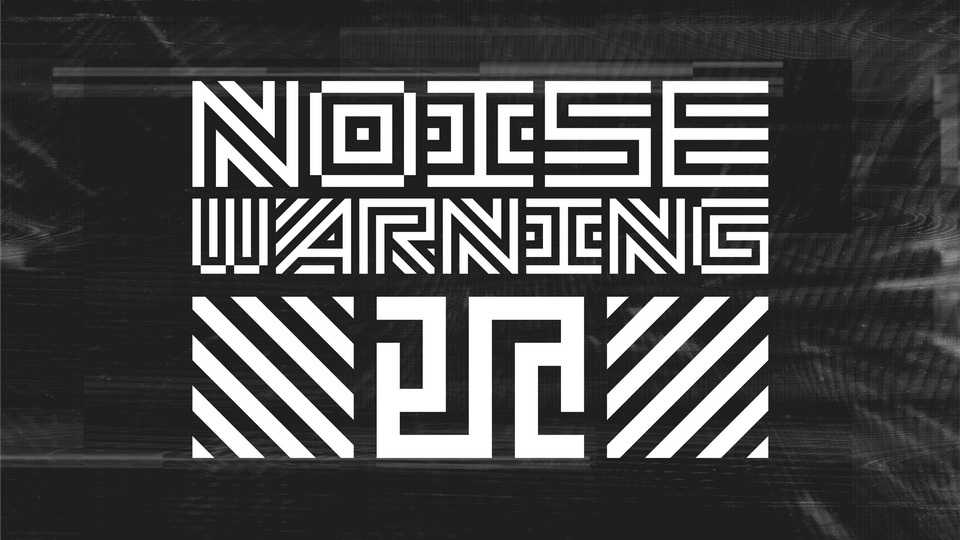
Download Nosie Warning-ϗ font, a unique modular display typeface with a futuristic look. Nosie Warning-ϗ has gain the feature of ability to change the font weight. Therefore, Nosie Warning-ϗ is a variable font